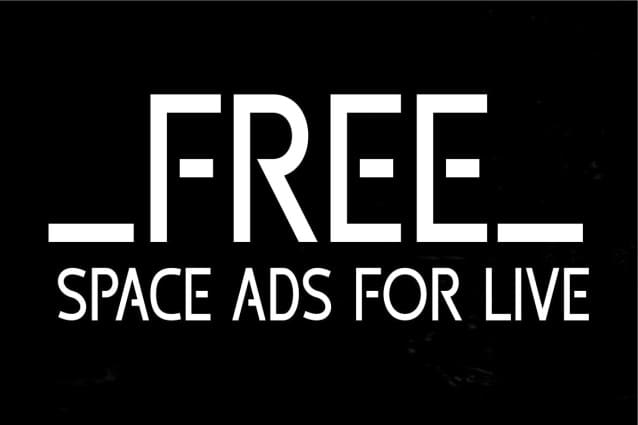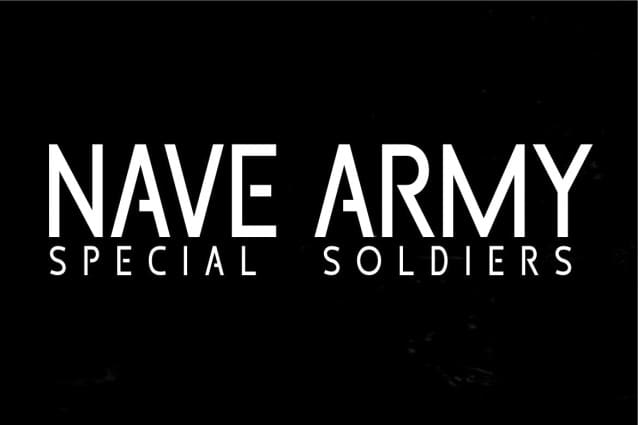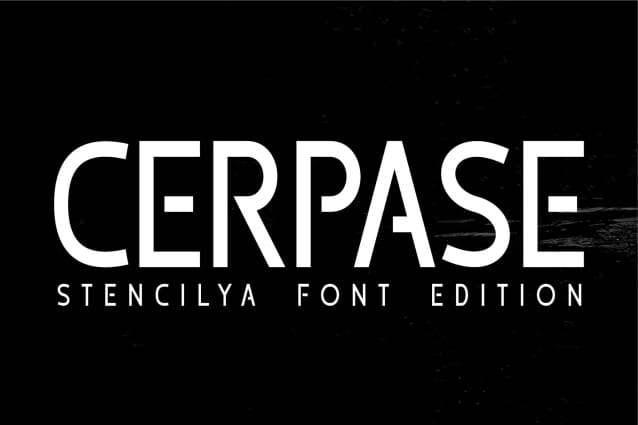
Cerpase Font
Cerpase Font a distinct and versatile font with an imposing presence. As its name suggests, it comes from the stencil font family and gives your text a feeling of robustness and solidity. Whether it’s writing compelling stories about the military world and its rich history, structuring classified ads or simply writing down ideas that grab attention. The sans serif elegance of “Stencil” ensures readability and aesthetics are never compromised, giving your words a captivating power that finds a resonated with readers.